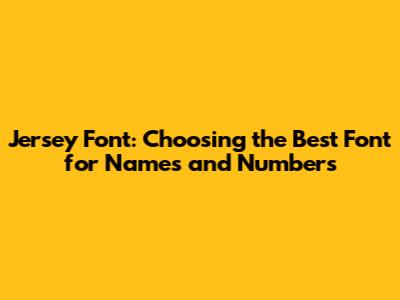
Choosing the right jersey font for names and numbers is crucial for creating a professional and visually appealing sports uniform. The font should be legible, durable, and reflective of the team's identity. Selecting the perfect font involves considering various factors, including readability, style, and compliance with league regulations. A well-chosen font enhances the overall aesthetic of the jersey, making it easier for fans and spectators to identify players and adds a touch of personalization and team spirit. Moreover, the right font can significantly contribute to the team's branding efforts, ensuring that the jerseys stand out and leave a lasting impression. Whether you're designing jerseys for a local sports club, a school team, or a professional league, understanding the nuances of jersey fonts is essential. Let's explore the key considerations and options available to help you make an informed decision.
Key Considerations for Jersey Fonts
Selecting the right jersey font involves several key considerations to ensure the final product meets both aesthetic and functional requirements. Readability is paramount; the font should be easily legible from a distance, allowing fans and officials to quickly identify players. This is especially important in fast-paced sports where split-second decisions rely on clear identification. The style of the font should align with the team's identity and branding. A modern, sleek font might suit a contemporary team, while a more traditional, bold font could be ideal for a team with a long history. Durability is another crucial factor. The font must withstand the rigors of the game, including frequent washing and exposure to the elements. High-quality materials and application techniques are essential to ensure the longevity of the names and numbers. Compliance with league regulations is also necessary; many leagues have specific rules regarding font styles, sizes, and colors. Ignoring these regulations can result in penalties or the rejection of the jerseys. Finally, consider the overall design of the jersey. The font should complement the team's colors, logo, and other design elements, creating a cohesive and visually appealing uniform. By carefully considering these factors, you can select a jersey font that enhances the team's image and performance.
Popular Jersey Font Styles
When it comes to jersey font styles, there's a wide array of options to choose from, each offering a unique look and feel. Block fonts are a classic choice, known for their bold, clean lines and excellent readability. They are particularly popular for traditional sports like football and baseball, where clarity is essential. Script fonts, on the other hand, offer a more elegant and stylish appearance. These fonts are often used for creating a sense of sophistication and personalization, making them suitable for sports like hockey and basketball. However, it's crucial to ensure that script fonts remain legible, especially when viewed from a distance. Slab-serif fonts combine the boldness of block fonts with a touch of vintage charm. These fonts feature thick, block-like serifs that add character and make them stand out. They are a great option for teams looking to blend tradition with a modern aesthetic. Sans-serif fonts provide a clean and contemporary look, characterized by their lack of serifs. These fonts are highly versatile and work well for a variety of sports. They are particularly effective when paired with modern jersey designs. Finally, athletic fonts are specifically designed for sports uniforms, featuring a dynamic and energetic appearance. These fonts often incorporate angled lines and bold shapes to convey a sense of speed and movement. When selecting a jersey font, consider the team's identity, the sport being played, and the overall design of the uniform to make the best choice.
How to Choose the Right Font Size and Spacing
Choosing the right jersey font size and spacing is crucial for ensuring readability and a professional appearance. The font size should be large enough to be easily visible from a distance, allowing fans and officials to quickly identify players. A general rule of thumb is to use a font size that is proportional to the size of the jersey and the length of the name or number. For adult jerseys, a font size of 3 to 4 inches is typically recommended for names, while numbers should be even larger, around 8 to 12 inches. Spacing between letters and numbers is equally important. Insufficient spacing can make the text appear cramped and difficult to read, while excessive spacing can make it look disjointed. Adjust the spacing to create a balanced and visually appealing look. Consider the font's characteristics when determining the optimal spacing; some fonts may require more or less spacing than others. Additionally, pay attention to the kerning, which is the spacing between individual letter pairs. Proper kerning ensures that the letters flow smoothly together and maintain readability. When applying names and numbers to the jersey, ensure that they are centered and aligned correctly. Misalignment can detract from the overall appearance and make the jersey look unprofessional. By carefully considering the font size, spacing, and alignment, you can create a jersey font that enhances the team's image and performance.
Tools and Resources for Finding Jersey Fonts
Finding the perfect jersey font can be a daunting task, but fortunately, there are numerous tools and resources available to help you. Online font marketplaces like MyFonts, Adobe Fonts, and Fontspring offer a vast selection of fonts, ranging from classic styles to modern designs. These marketplaces allow you to browse fonts by category, style, and price, making it easy to find the perfect match for your team's identity. Font identification tools like WhatTheFont and Font Matcherator can help you identify a font from an image or sample. Simply upload the image, and the tool will analyze the font and suggest similar options. Font management software like FontBase and NexusFont can help you organize and manage your font collection. These tools allow you to preview fonts, activate and deactivate them as needed, and resolve font conflicts. Online design platforms like Canva and Adobe Creative Cloud Express offer a variety of pre-designed jersey font templates that you can customize to suit your team's needs. These platforms are user-friendly and require no prior design experience. Consulting with a professional graphic designer can provide valuable insights and guidance in selecting the right font for your team. A designer can help you choose a font that aligns with your team's branding, ensures readability, and complies with league regulations. By leveraging these tools and resources, you can streamline the font selection process and create a jersey font that enhances your team's image and performance.
Step-by-Step Guide to Applying Fonts to Jerseys
Applying jersey fonts to jerseys requires careful attention to detail to ensure a professional and durable result. Here's a step-by-step guide to help you through the process: First, gather your materials. You'll need the jersey font of your choice, a vinyl cutter or heat press, heat transfer vinyl (HTV), a weeding tool, a heat-resistant transfer sheet, and the jersey itself. Prepare your design by creating the names and numbers in your chosen font using design software like Adobe Illustrator or CorelDRAW. Ensure that the design is properly sized and spaced for the jersey. Cut the design using a vinyl cutter. Load the HTV into the cutter and adjust the settings according to the manufacturer's instructions. Mirror the design before cutting, as it will be applied in reverse to the jersey. Weed the design by removing the excess vinyl around the letters and numbers. Use a weeding tool to carefully peel away the unwanted vinyl, leaving only the desired design on the backing sheet. Position the design on the jersey. Place the design on the jersey in the desired location, ensuring that it is centered and aligned correctly. Use a ruler or measuring tape to ensure accuracy. Apply heat to the design using a heat press. Place a heat-resistant transfer sheet over the design to protect it from direct heat. Set the heat press to the recommended temperature and pressure for the HTV and apply heat for the specified time. Peel off the backing sheet. Once the design has cooled slightly, carefully peel off the backing sheet, leaving the vinyl adhered to the jersey. Inspect the design to ensure that it is properly adhered and that there are no bubbles or wrinkles. By following these steps carefully, you can apply jersey fonts to jerseys with professional results.
Maintaining Jersey Fonts for Longevity
Maintaining jersey fonts properly is essential to ensure their longevity and preserve the overall appearance of the jersey. Proper care and maintenance can prevent cracking, peeling, and fading, keeping the names and numbers looking sharp for years to come. Always follow the care instructions provided by the jersey manufacturer and the HTV supplier. These instructions typically outline the recommended washing temperature, drying method, and ironing guidelines. Wash jerseys inside out to protect the vinyl from abrasion and direct contact with other clothing. Use a mild detergent and avoid using bleach or fabric softeners, as these can damage the vinyl. Avoid using high heat when washing or drying jerseys. High temperatures can cause the vinyl to shrink, crack, or peel. Tumble dry on low heat or hang the jersey to dry. If ironing is necessary, iron the jersey inside out on a low setting. Avoid ironing directly over the vinyl, as this can cause it to melt or distort. Store jerseys in a cool, dry place away from direct sunlight. Sunlight can cause the vinyl to fade over time. Avoid folding jerseys with the vinyl facing inward, as this can cause the vinyl to stick together and peel. If you notice any signs of wear or damage to the jersey font, repair it promptly. Small cracks or peels can often be repaired with a heat press and a small piece of HTV. By following these maintenance tips, you can extend the life of your jersey fonts and keep your jerseys looking their best.